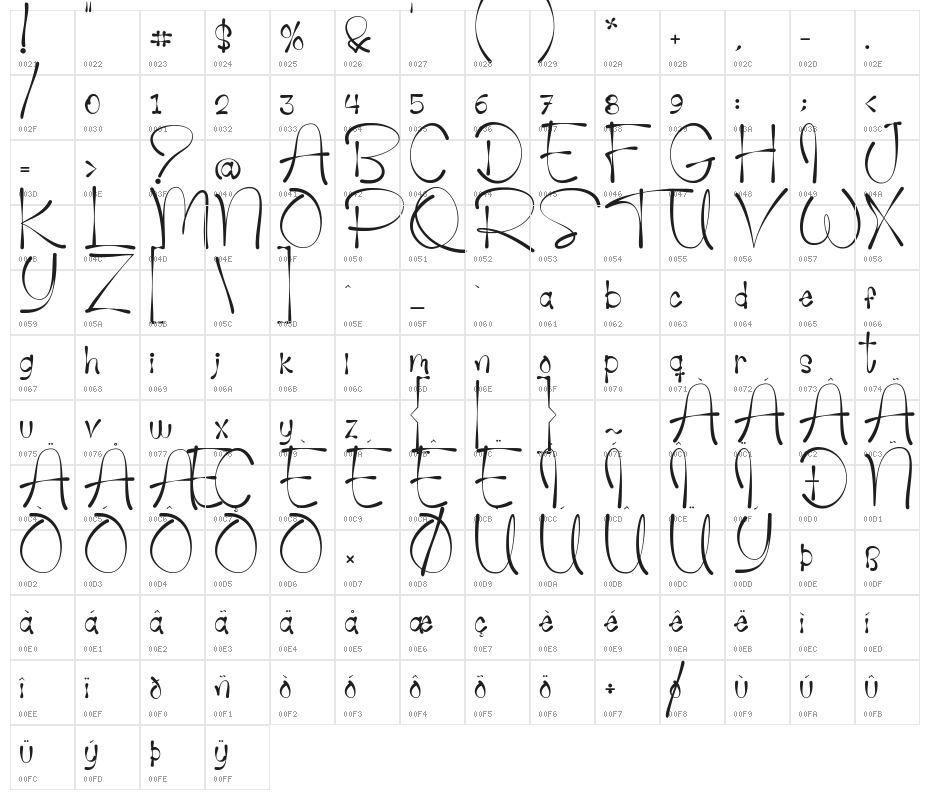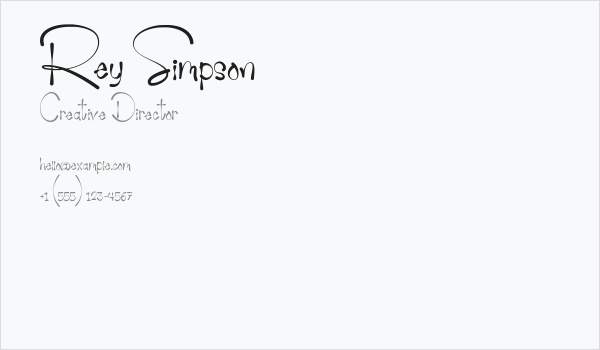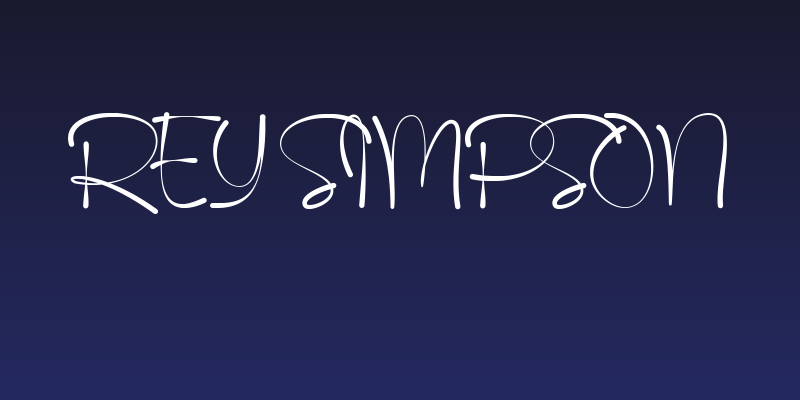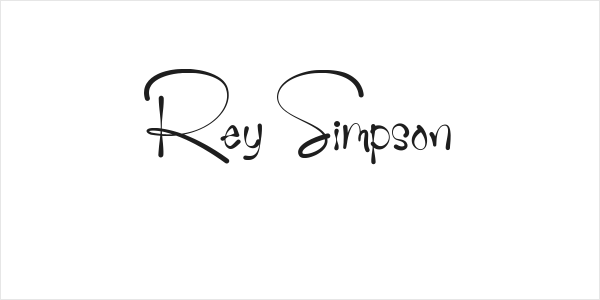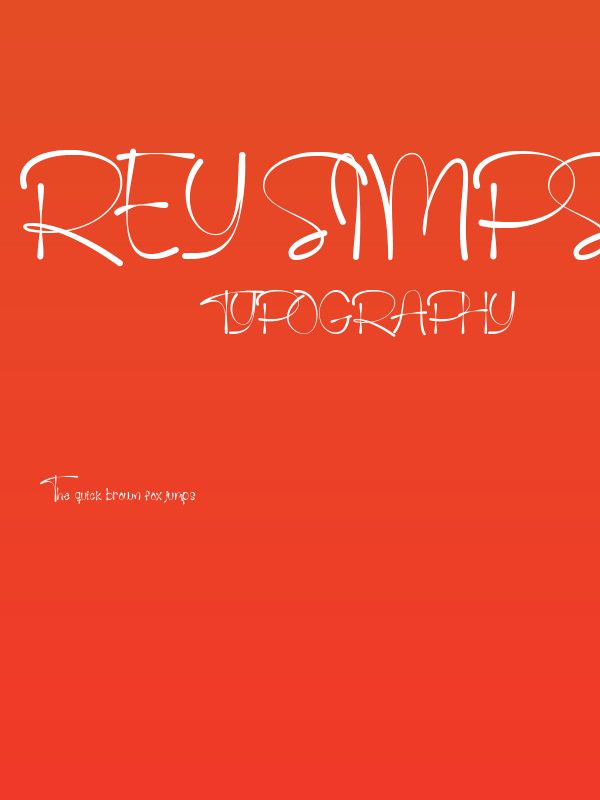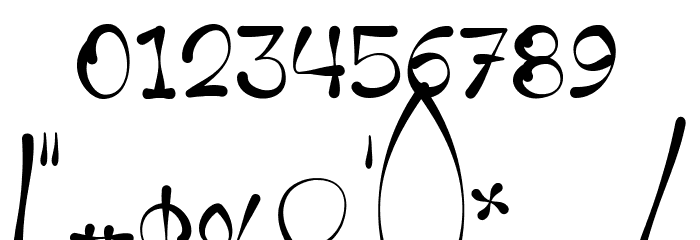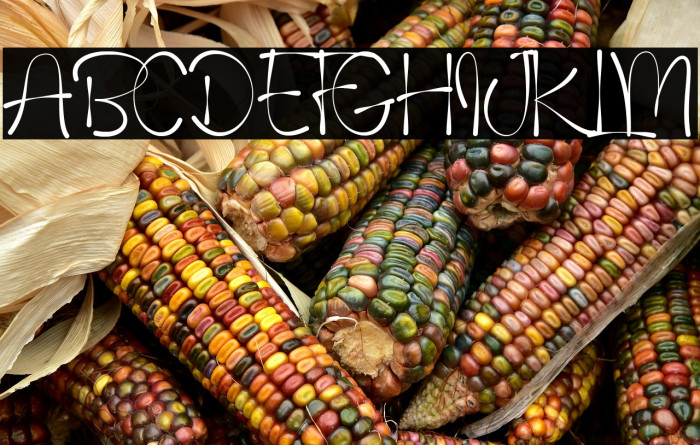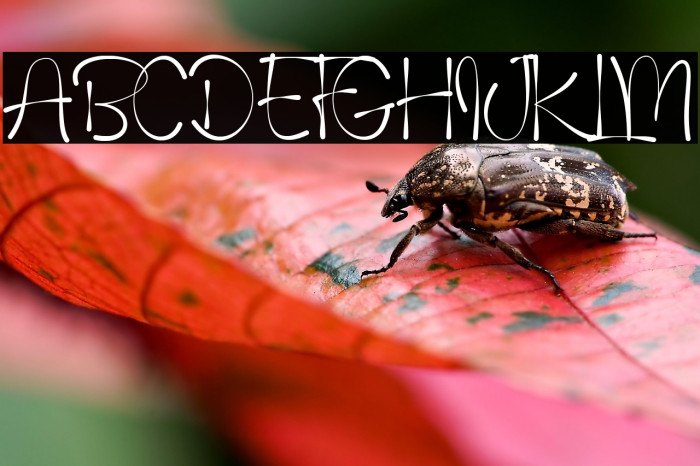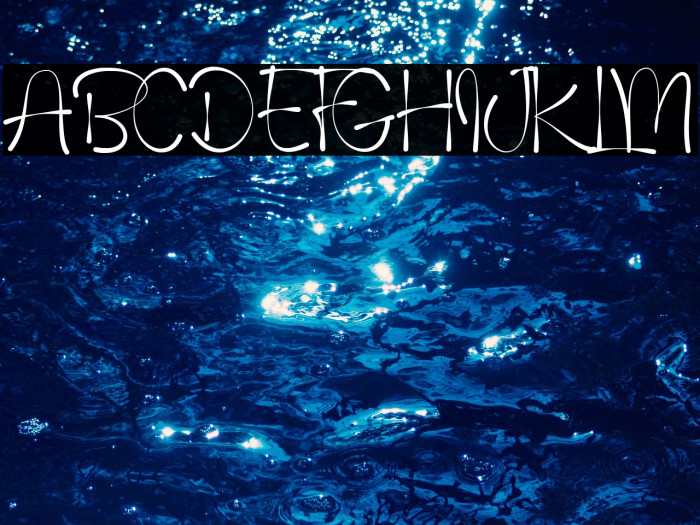
Rey Simpson Font
Rey Simpson Description
This font features a playful and whimsical design, characterized by its unique and irregular letterforms. The uppercase letters have a tall and narrow appearance with exaggerated curves and loops, giving them a lively and dynamic feel. The lowercase letters maintain a similar style, with rounded shapes and varying stroke widths that add to the font's quirky personality. Numbers and special characters follow the same design principles, ensuring consistency throughout. The font's overall aesthetic is both artistic and informal, making it suitable for creative projects that require a touch of individuality.
| Overall Style | Artistic and informal |
| Use Case | Headlines, Artistic projects, Branding |
| Proposed Projects | Ideal for children's books, creative posters, artistic branding, and playful invitations. |